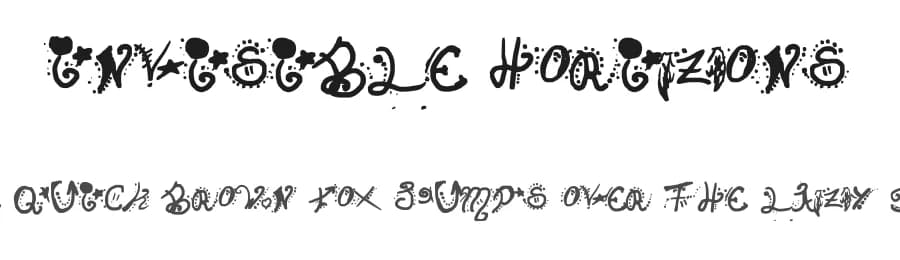
About Invisible Horizons Font
Invisible Horizons is a script & handwritten font designed by Scarlett. It includes 96 glyphs, a regular weight, TTF (TrueType) format, and 107 languages. Invisible Horizons is free to download; check the license details on this page before commercial use. Script & handwritten fonts like Invisible Horizons work best for wedding invitations, greeting cards, signatures, and elegant branding.
Invisible Horizons Font is a script font that shines as a display or heading face. Pair it with a clean sans-serif or serif font for body text β the contrast creates a clear hierarchy while the two styles stay balanced and easy to read.
Invisible Horizons Font